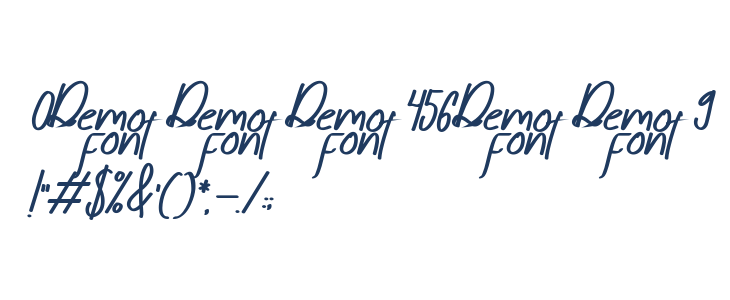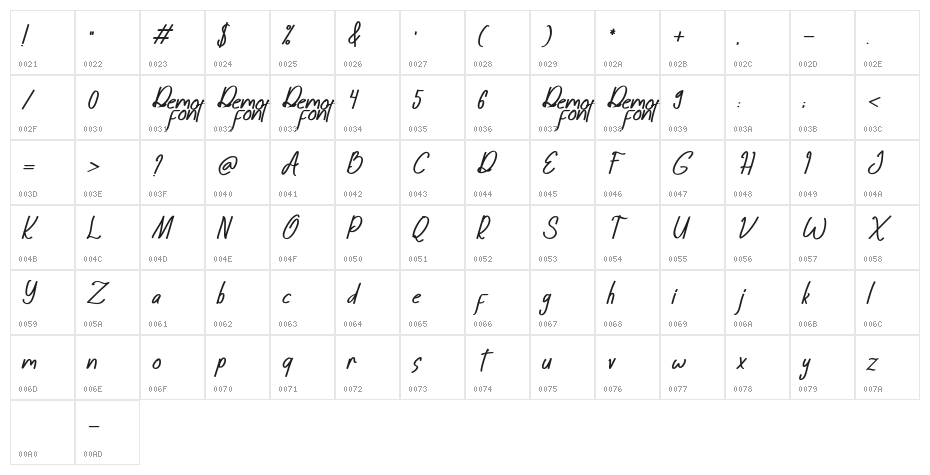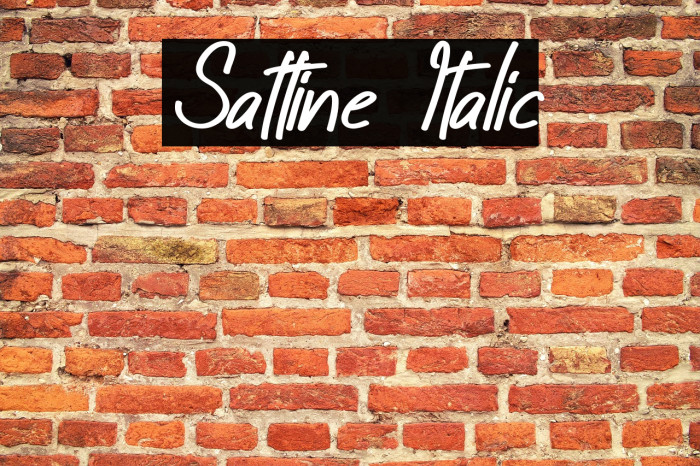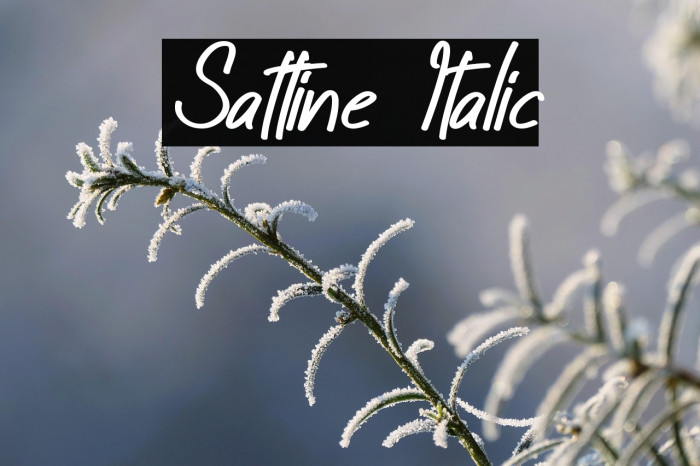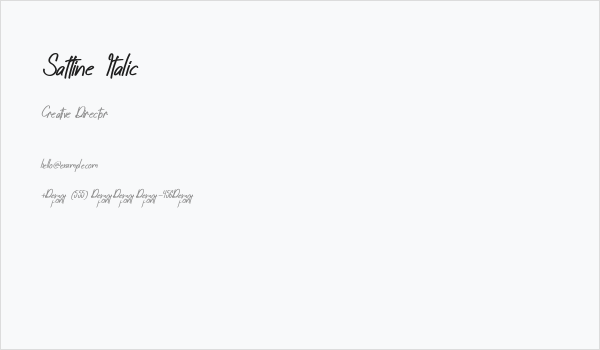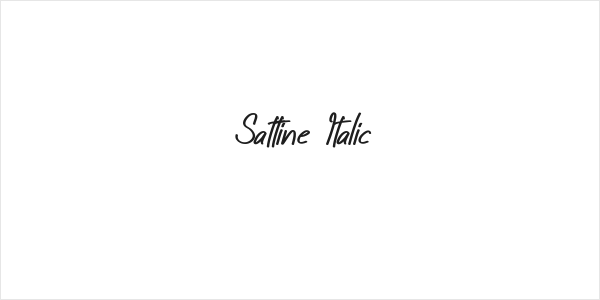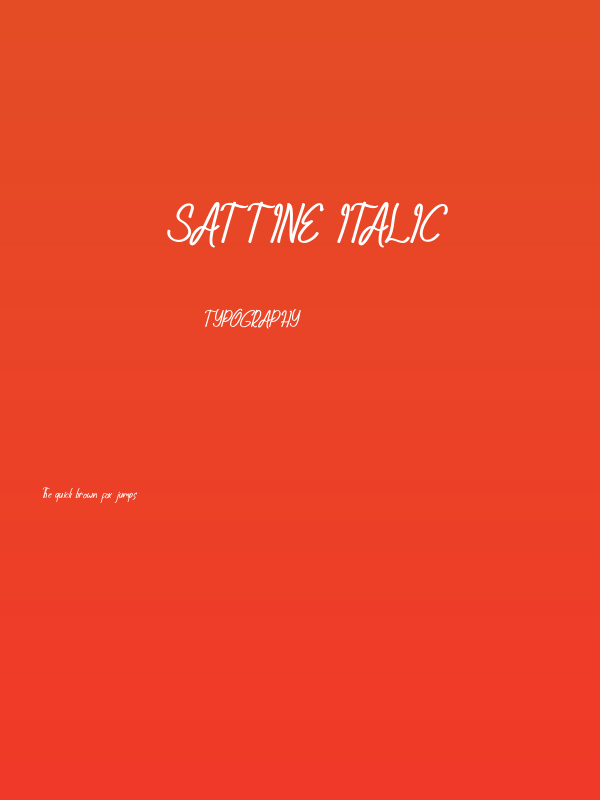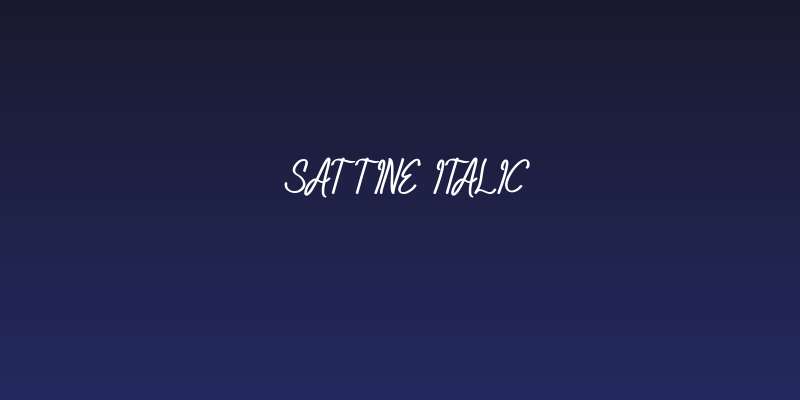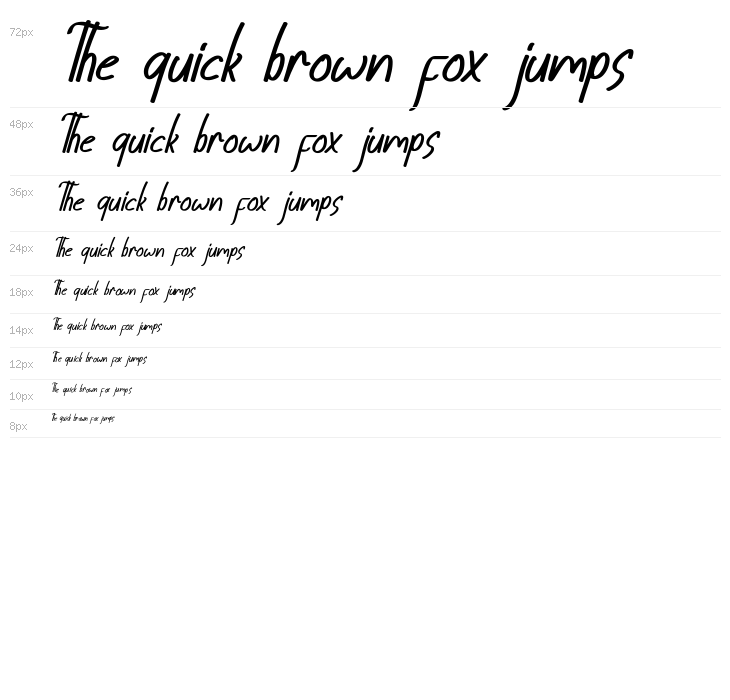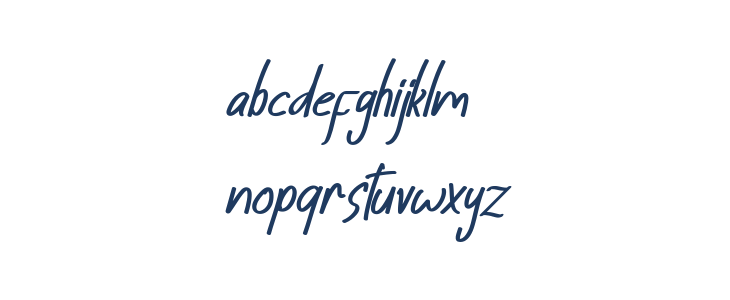
Sattine Italic Font
Sattine Italic Description
This font features a flowing, cursive style with elegant, sweeping strokes that give it a sophisticated and artistic appearance. The letters are interconnected, creating a seamless and fluid look that is both stylish and legible. The uppercase letters are bold and prominent, while the lowercase letters maintain a consistent flow, enhancing the overall aesthetic. The numbers and special characters are designed to match the cursive style, ensuring a cohesive look across all text. This font's italic nature adds a dynamic and expressive touch, making it suitable for creative and decorative uses.
| Proposed Projects | Ideal for wedding invitations, greeting cards, logos, and branding materials where a touch of elegance and creativity is desired. |